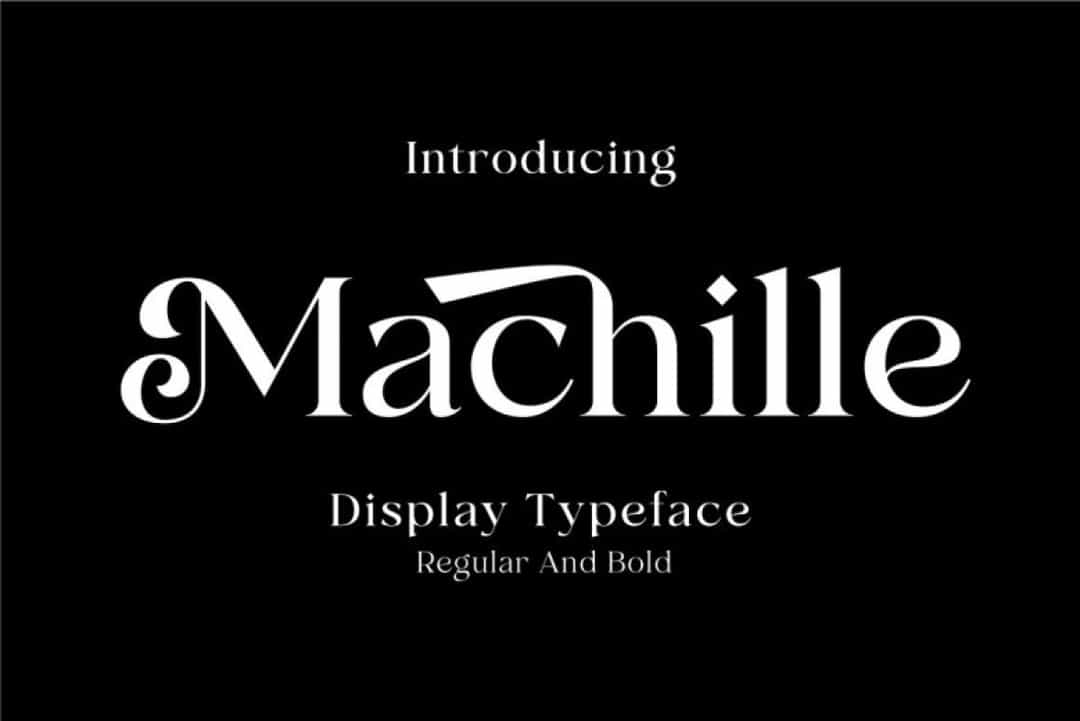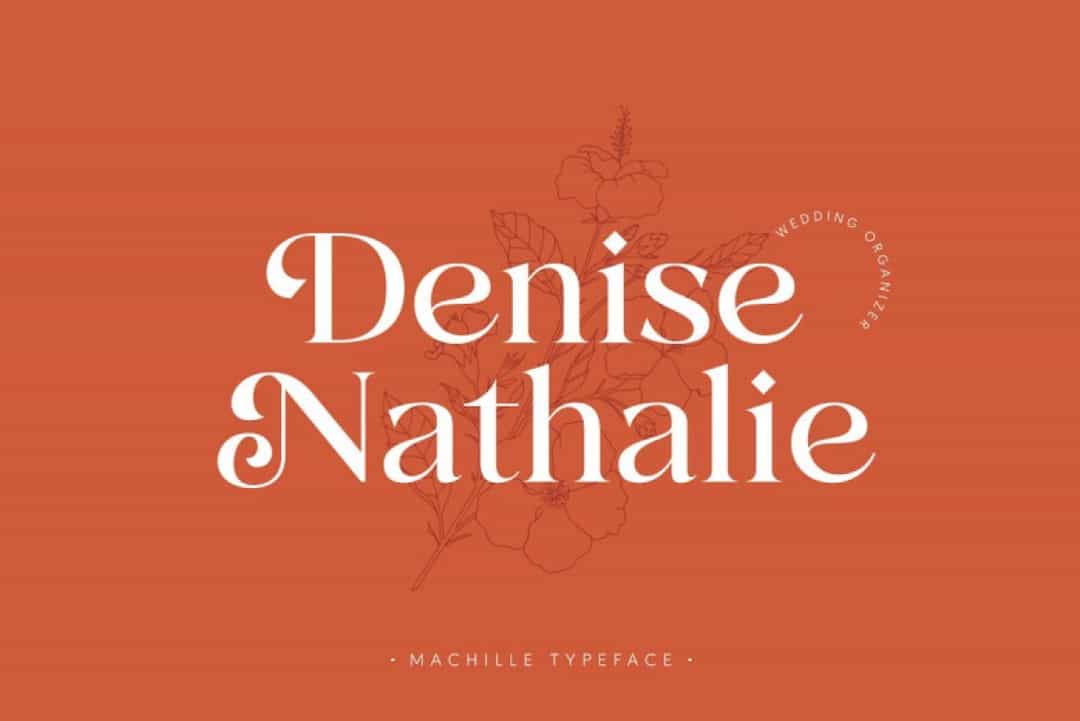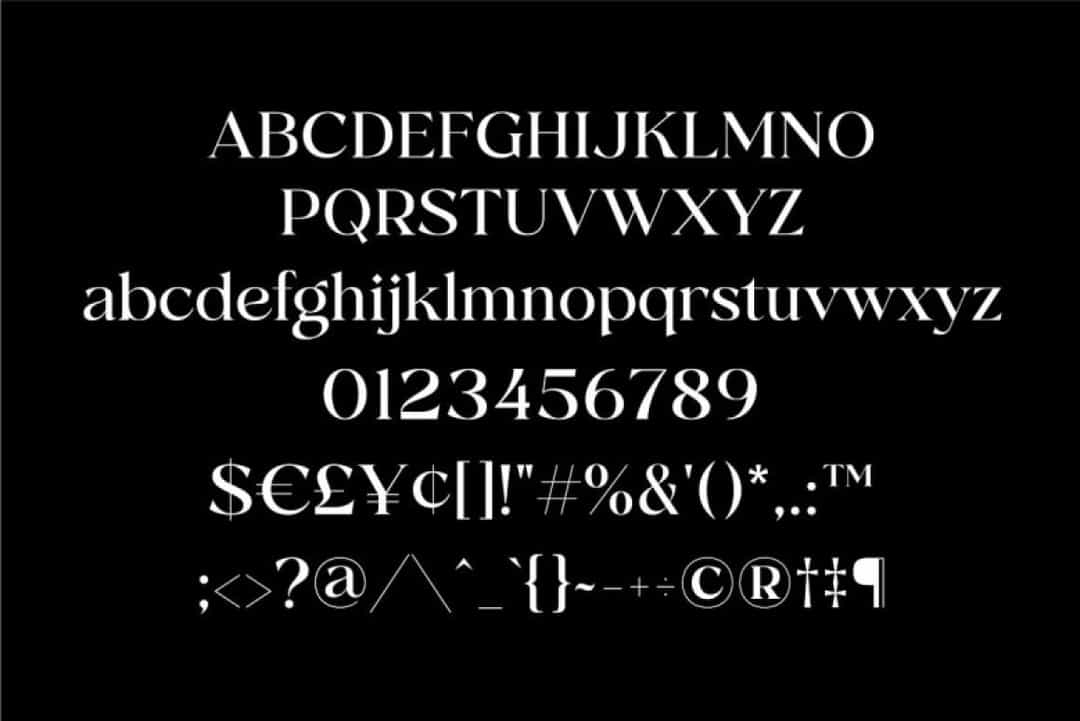
Discover Machille Font, part of the Serif Display collection—a versatile and unique font perfect for adding a personal touch to your projects. Download it for free and enjoy crafting designs with style, from invitations to social media posts. This font is available exclusively for personal use, giving you the freedom to create without limits. Unlock your creativity with Machille Font today!
Machille is an elegant graphic serif font designed specifically for fashion. However, its versatility extends far beyond fashion; use this font in labels, invitations, logos and books or magazines along with greeting cards wedding and greeting cards packaging novel stationery labels etc.